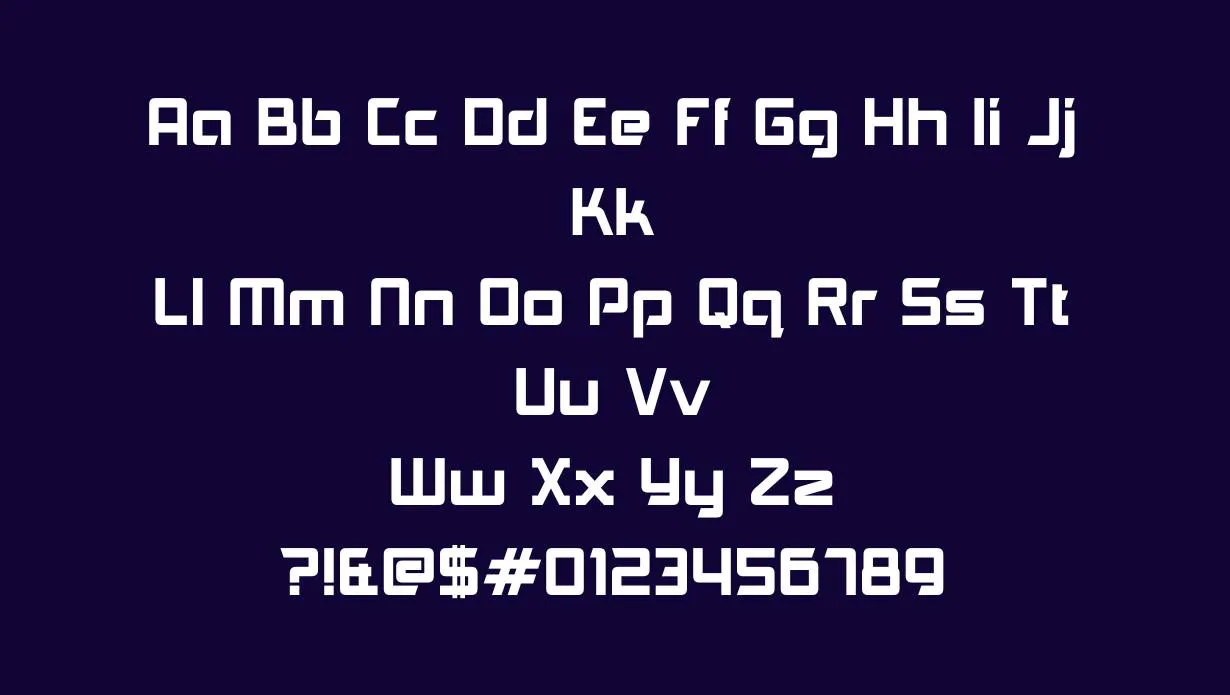
Akashi font represents a modern and advanced style, which is commonly used for technology-themed designs, gaming material, and logos.
Its clean lines and modern design bring a sense of contemporary style to digital interfaces and branding efforts, making it a perfect fit for modern and tech-savvy projects.